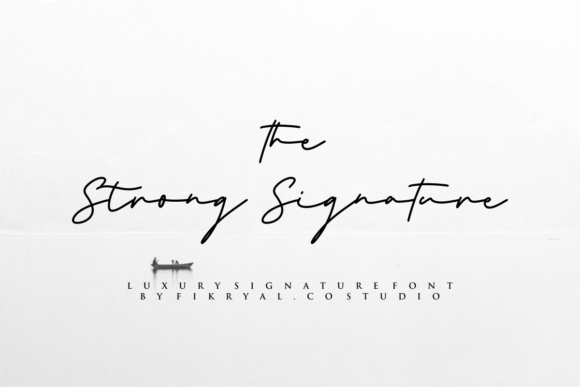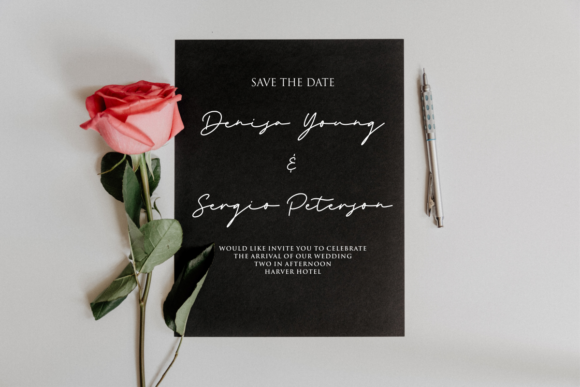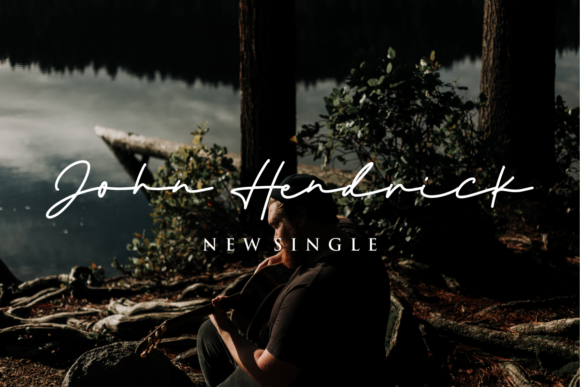
The Strong Signature Font
The Strong Signature is an incredibly elegant and flowing handwritten font. Fall in love with its distinct and timeless style and use it to create spectacular designs!